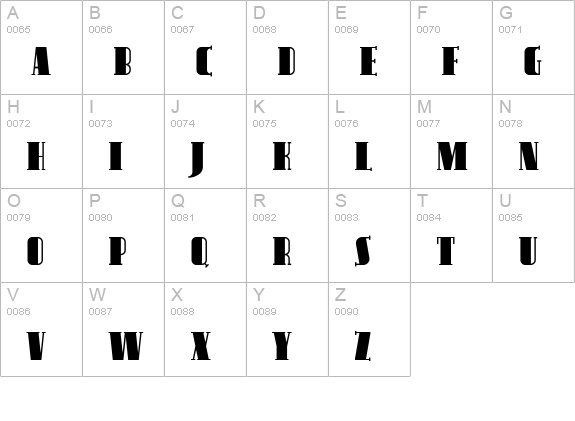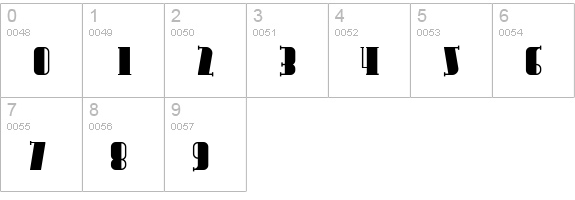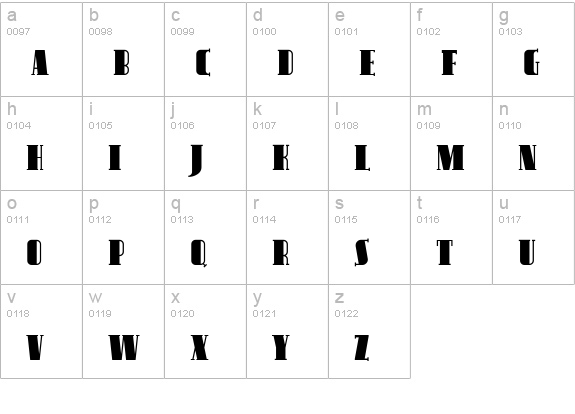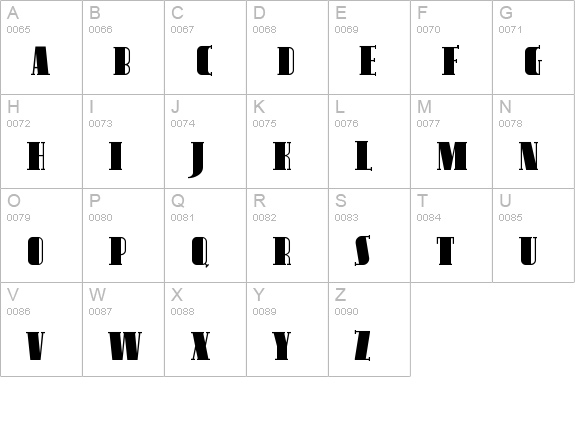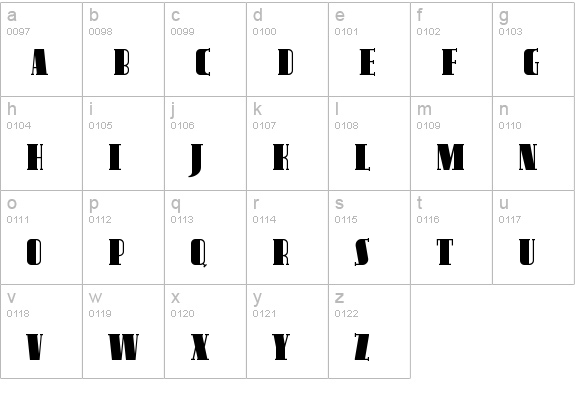
Avondale SC is a modern and elegant serif font that exudes sophistication and charm. With its clean lines and classic design, this typeface is perfect for a wide range of design projects, from branding to editorial use. Avondale SC strikes the perfect balance between traditional and contemporary, making it a versatile choice for any creative endeavor. What sets Avondale SC apart is not only its timeless aesthetic but also its accessibility. This font is available for free download at FontsMarket.com, allowing designers and enthusiasts to easily incorporate it into their work without any hassle. Whether you're designing a logo, creating a poster, or crafting a website, Avondale SC will elevate your project with its refined style and professional appeal. Embrace the beauty and versatility of Avondale SC today by downloading it for free at FontsMarket.com. Let this exquisite font inspire your creativity and bring your design visions to life with its timeless elegance and grace.